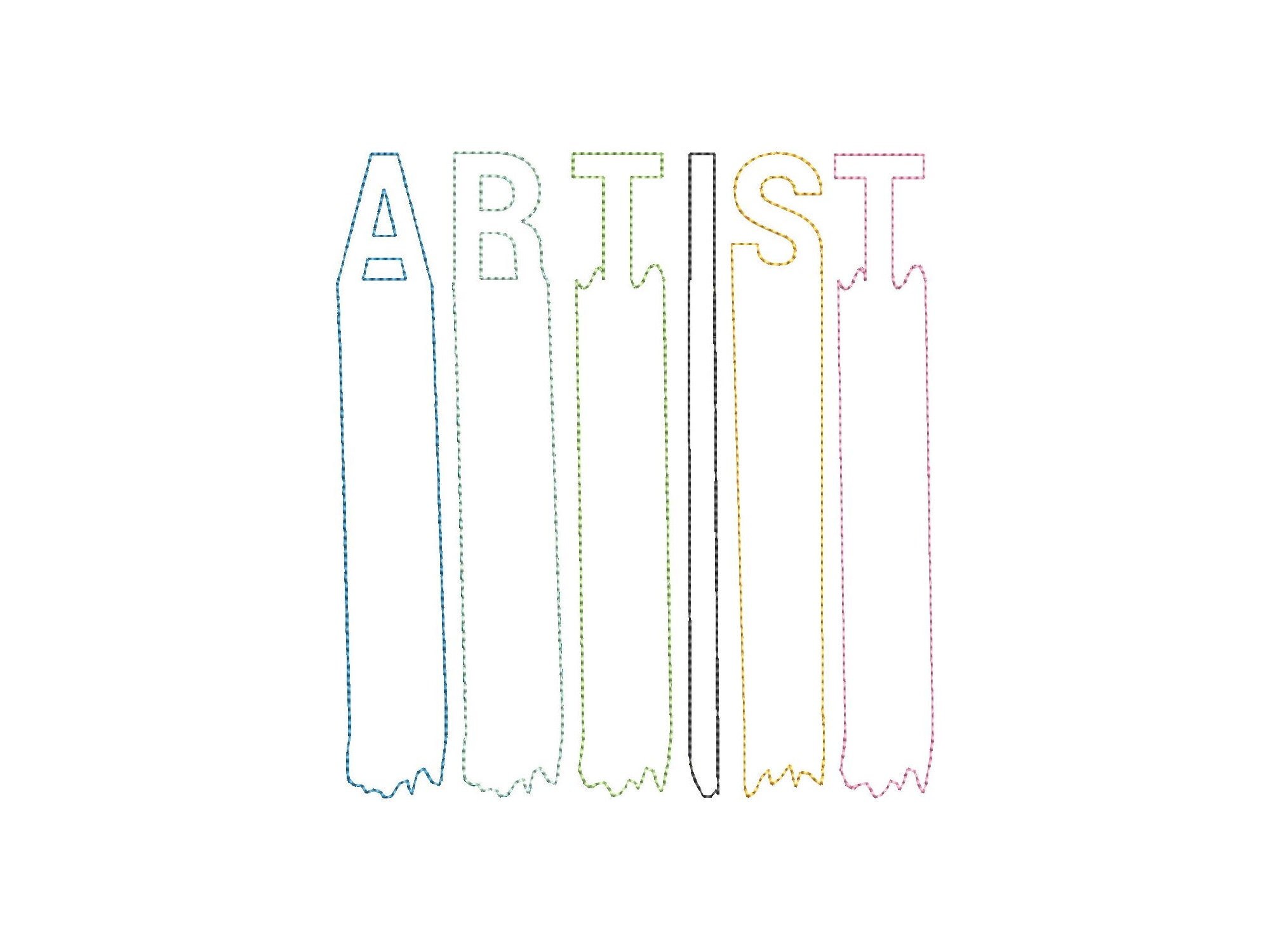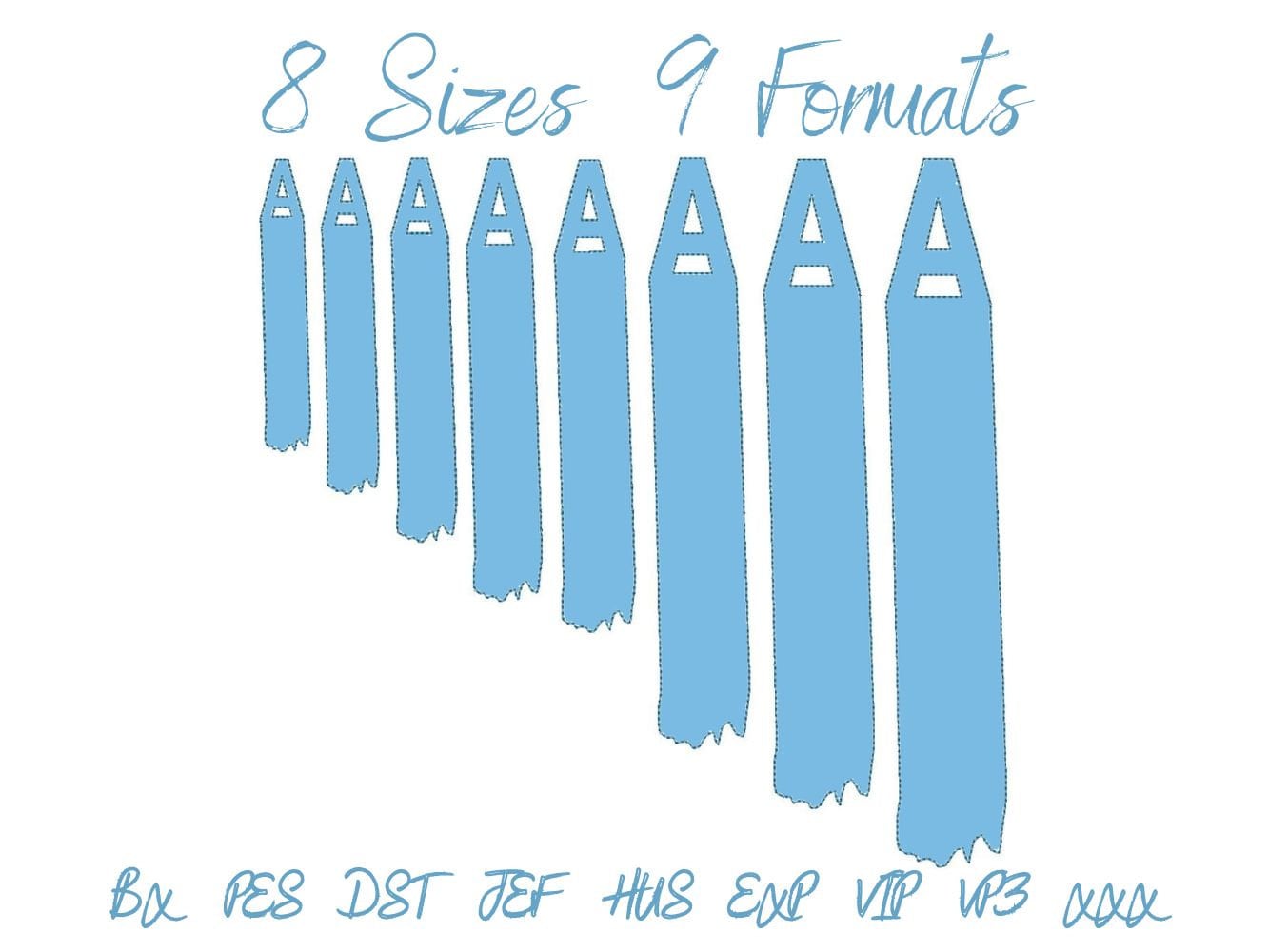
Brush Stroke Font raggedy edge Applique alphabet letters machine embroidery designs in many sizes, kids artistic name monogram, BX included
This is raggedy edge Applique font.
The whole alphabet A-Z uppercase